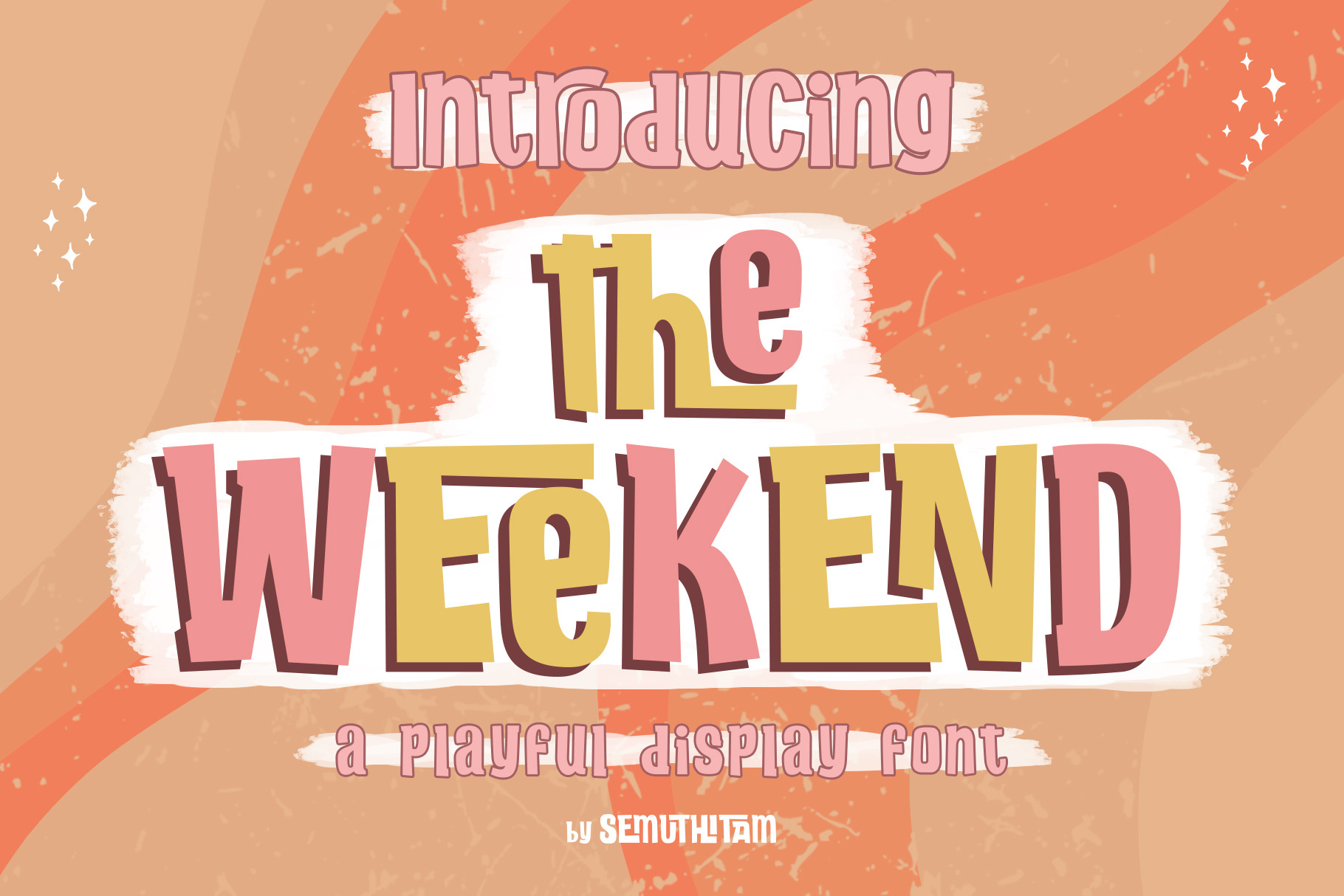
The Weekend Display Font
the Weekend is playful display font. You will enjoy the many possible appearances of diverse ligatures just by replacing the uppercase and lowercase only. It comes with 93 different variations of ligatures. the Weekend made to make your day more colorful & cheerful.
the Weekend very suitable for: branding needs, social media promotion, youtube thumbnail, book cover, t-shirt design, stickers, prints, any colorful & cheerful needs.